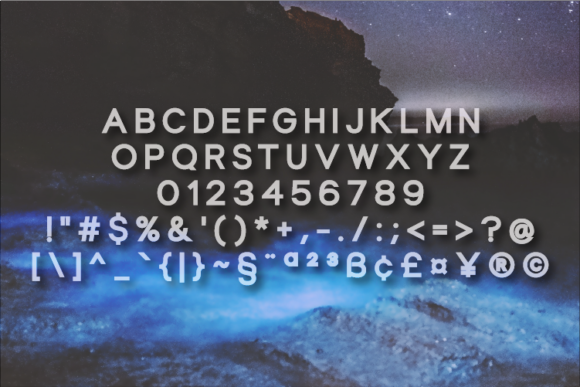
Introduction to Delored Font
Do you ever find yourself scrolling through your design inspiration board, desperately searching for the perfect font to elevate your creative project? For many designers, this is a familiar moment of frustration – until now. Introducing the Delored Font, a modern and strong sans serif font that’s sure to take your designs to the next level.
With its neat and beautiful arrangement of letters, the Delored Font is perfect for both formal and non-formal designs. Whether you’re working on a high-quality brochure or a simple social media graphic, this versatile typeface is sure to impress. And the best part? It’s available for free download, making it a valuable resource for designers on a budget.
What sets the Delored Font apart is its unique ability to stand out on even the most transparent backgrounds. This means that your designs will always look crisp and clear, even when paired with subtle backgrounds. As a valuable design resource, the Delored Font is a must-have for any creative professional looking to take their work to the next level.
Key Features of Delored Font
- High-quality, professional font design ideal for creative projects and designs.
- Designed as a versatile design resource, suitable for use in logos, branding, and other creative projects.
- Includes a wide range of characters, including uppercase and lowercase letters, numbers, and special symbols.
Honest Review: Delored Font
I recently stumbled upon the Delored Font, and I’m excited to share my thoughts on this design resource. As a designer, I’m always on the lookout for high-quality fonts that can elevate my creative projects.
The Delored Font is a free download, which is always a plus in my book. And let me tell you, it’s definitely worth the free price tag. The font is sleek, modern, and perfect for any design project that needs a touch of sophistication.
- High-quality design that’s perfect for creative projects ✨
- Transparent background, making it easy to use with any design ✨
- May not be suitable for very small font sizes due to its modern design ⚠️
- Some users may find the font too minimalist ⚠️
Overall, I’m impressed with the Delored Font. It’s a solid design resource that’s perfect for designers looking for a high-quality, modern font. While it may have some limitations, I believe it’s definitely worth checking out, especially if you’re looking for a free download.
Tips for Getting the Most Out of Delored Font
To get the most out of Delored Font, experiment with different font sizes, colors, and combinations to create unique and eye-catching designs.